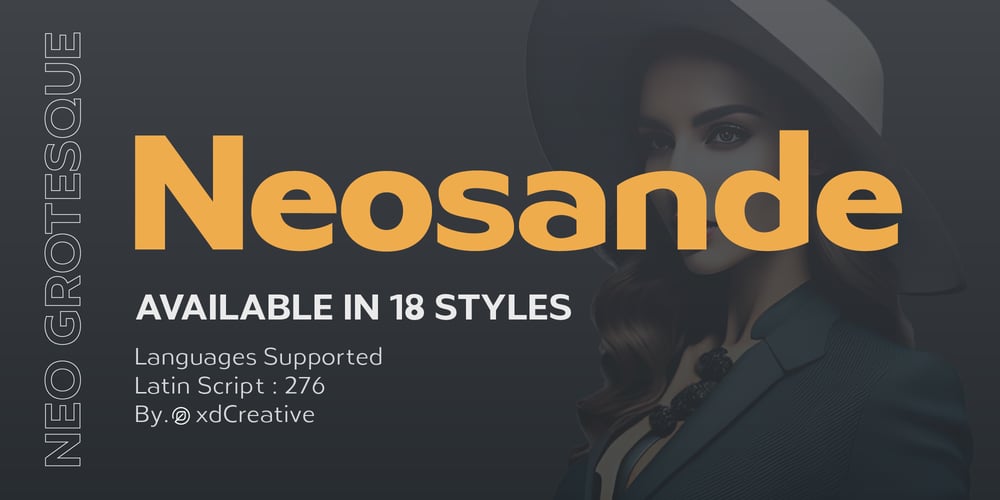
Neosande
Neosande font
Neosande Font Family was designed by Faldy Kudo and published by XdCreative. Neosande contains 18 styles and family package options. Introducing New Neosande is a contemporary typeface family that belongs to the neo-grotesque sans serif category. It was designed by Faldykudo and released in 2023. The typeface family includes a range of weights, from Thin to Black.The design of Neosande is characterized by a clean with straight lines. It has a modern, sleek look that makes it suitable for a wide range of applications, including branding, advertising, editorial design, and web design. The typeface has a high degree of legibility, making it ideal for use in body text, headings, and titles.In terms of language support, Neosande covers a wide range of Latin-based languages, including Western, Central, and Eastern European languages, as well as Turkish, Baltic, and Celtic languages.Overall, Neosande is a versatile and modern typeface family that offers designers a range of weights and styles, as well as OpenType alternates, making it a popular choice for a wide range of design applications.